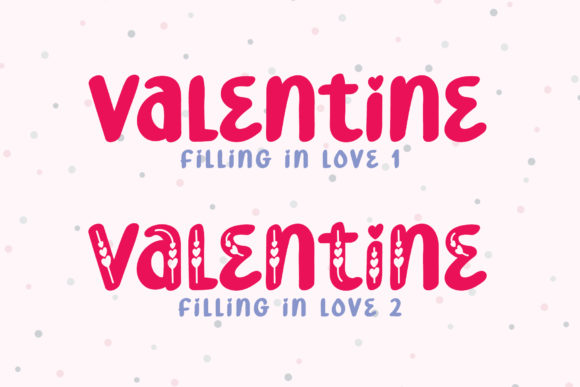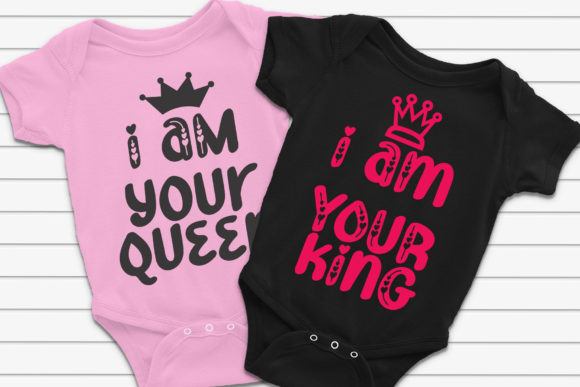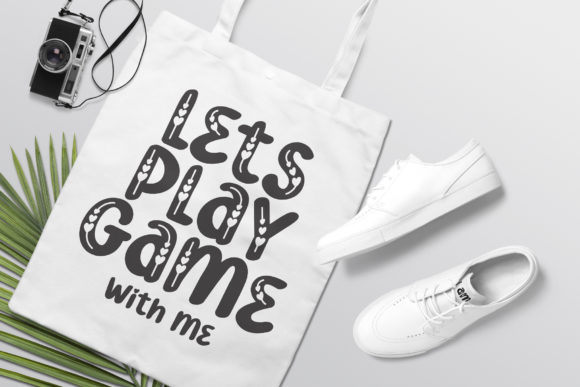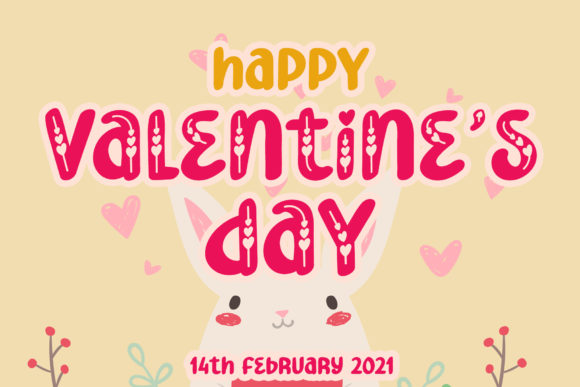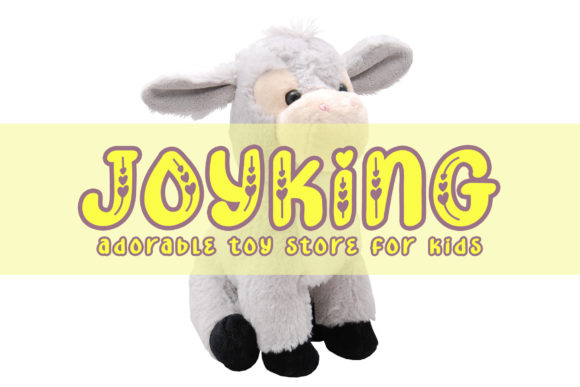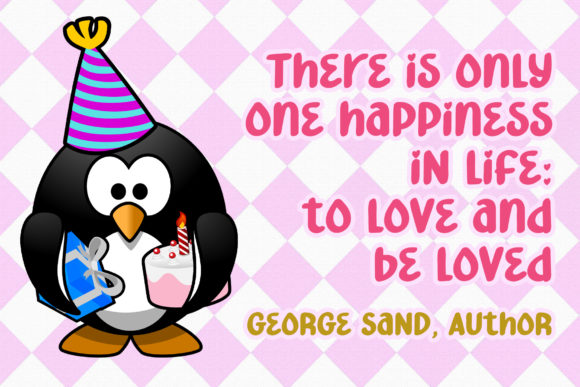
Filling in Love Font: The Perfect Addition to Your Design
Are you looking for a font that can add a touch of cuteness and romance to your design? Look no further than the Filling in Love Font. This bold, cute, and sweet display font is perfect for designers and crafters who want to create beautiful and eye-catching projects.
What is Filling in Love Font?
Filling in Love Font is a unique and charming font that is designed to bring a sense of joy and playfulness to your designs. Its bold and sweet appearance makes it perfect for creating romantic and whimsical projects, such as wedding invitations, Valentine’s Day cards, and other love-themed designs.
Key Features of Filling in Love Font
- Bold and Cute Appearance: Filling in Love Font has a bold and cute appearance that is sure to grab attention.
- Sweet Display Font: This font is designed to be a sweet display font, making it perfect for headlines, titles, and other prominent text elements.
- Romantic and Whimsical: Filling in Love Font has a romantic and whimsical feel, making it perfect for love-themed designs.
- Easily Readable: Despite its bold appearance, Filling in Love Font is easily readable, making it perfect for use in a variety of design projects.
Uses of Filling in Love Font
Filling in Love Font is a versatile font that can be used in a variety of design projects, including:
- Wedding Invitations: Add a touch of romance and whimsy to your wedding invitations with Filling in Love Font.
- Valentine’s Day Cards: Create beautiful and eye-catching Valentine’s Day cards with this charming font.
- Social Media Graphics: Use Filling in Love Font to create sweet and playful social media graphics that are sure to grab attention.
- Branding and Packaging: Add a touch of personality to your brand with Filling in Love Font, perfect for use in branding and packaging design.
Why Choose Filling in Love Font?
There are many reasons why you should choose Filling in Love Font for your design projects. Here are just a few:
- Unique and Charming: Filling in Love Font is a unique and charming font that will add a touch of personality to your designs.
- Easily Customizable: This font is easily customizable, allowing you to adjust the size, color, and style to fit your design needs.
- High-Quality Design: Filling in Love Font is designed to high-quality standards, ensuring that it looks great in any design project.
Tips for Using Filling in Love Font
Here are a few tips for using Filling in Love Font in your design projects:
- Use it as a Display Font: Filling in Love Font is designed to be a display font, so use it as a headline or title to grab attention.
- Pair it with Other Fonts: Pair Filling in Love Font with other fonts to create a unique and interesting design.
Filling in Love Font is a bold, cute, and sweet display font that is perfect for designers and crafters who want to add a touch of romance and whimsy to their designs. With its unique and charming appearance, easily readable design, and versatility, this font is sure to become a favorite in your design toolkit.